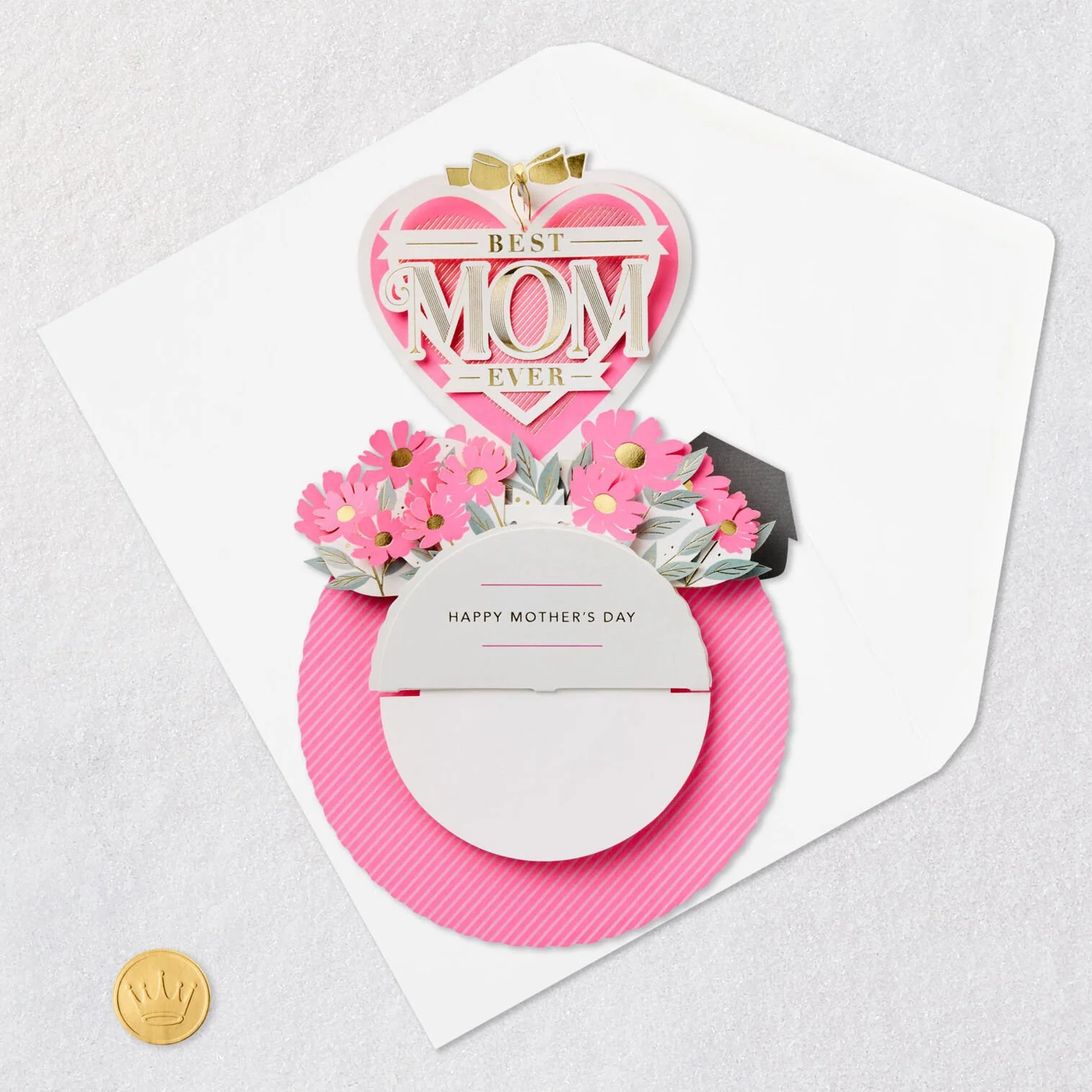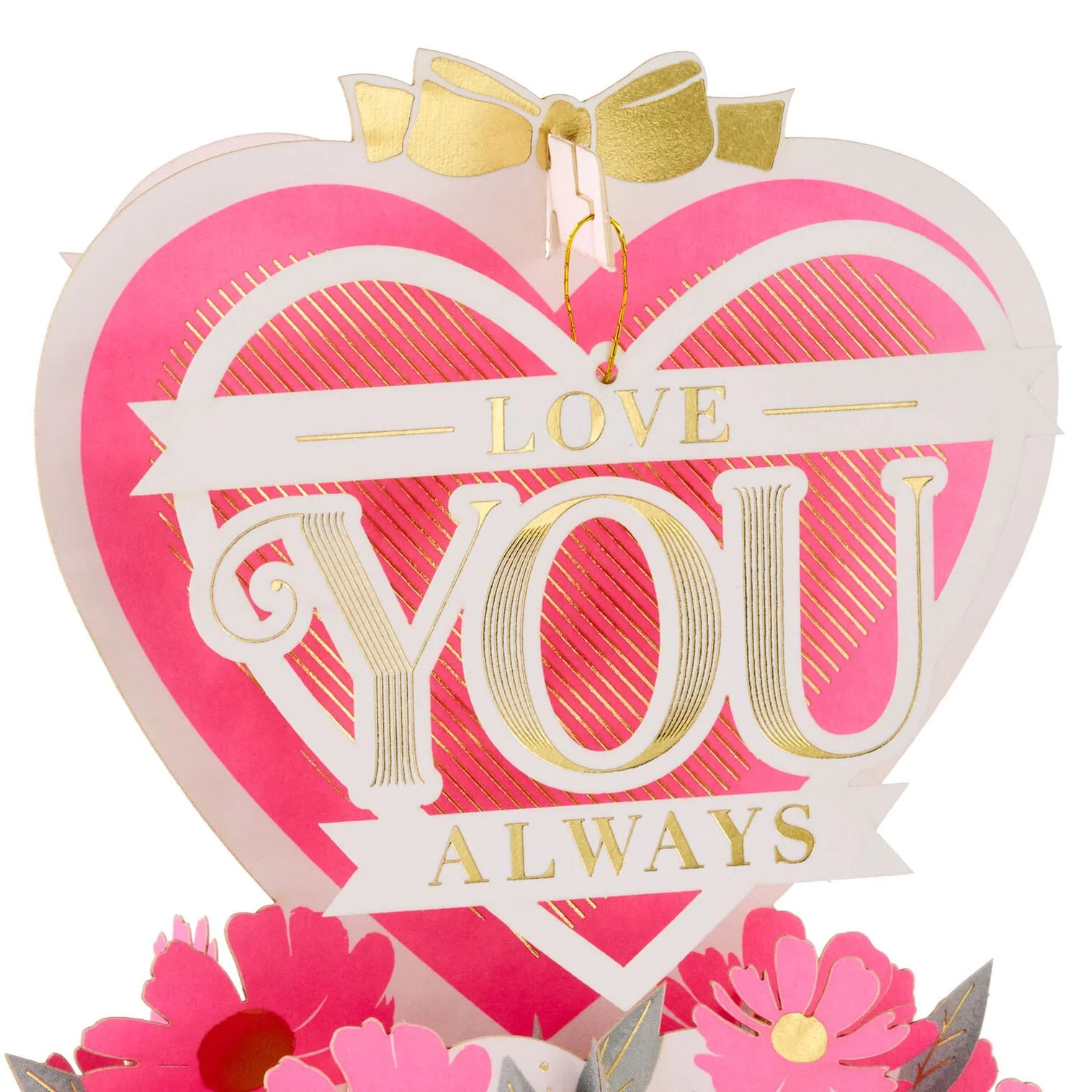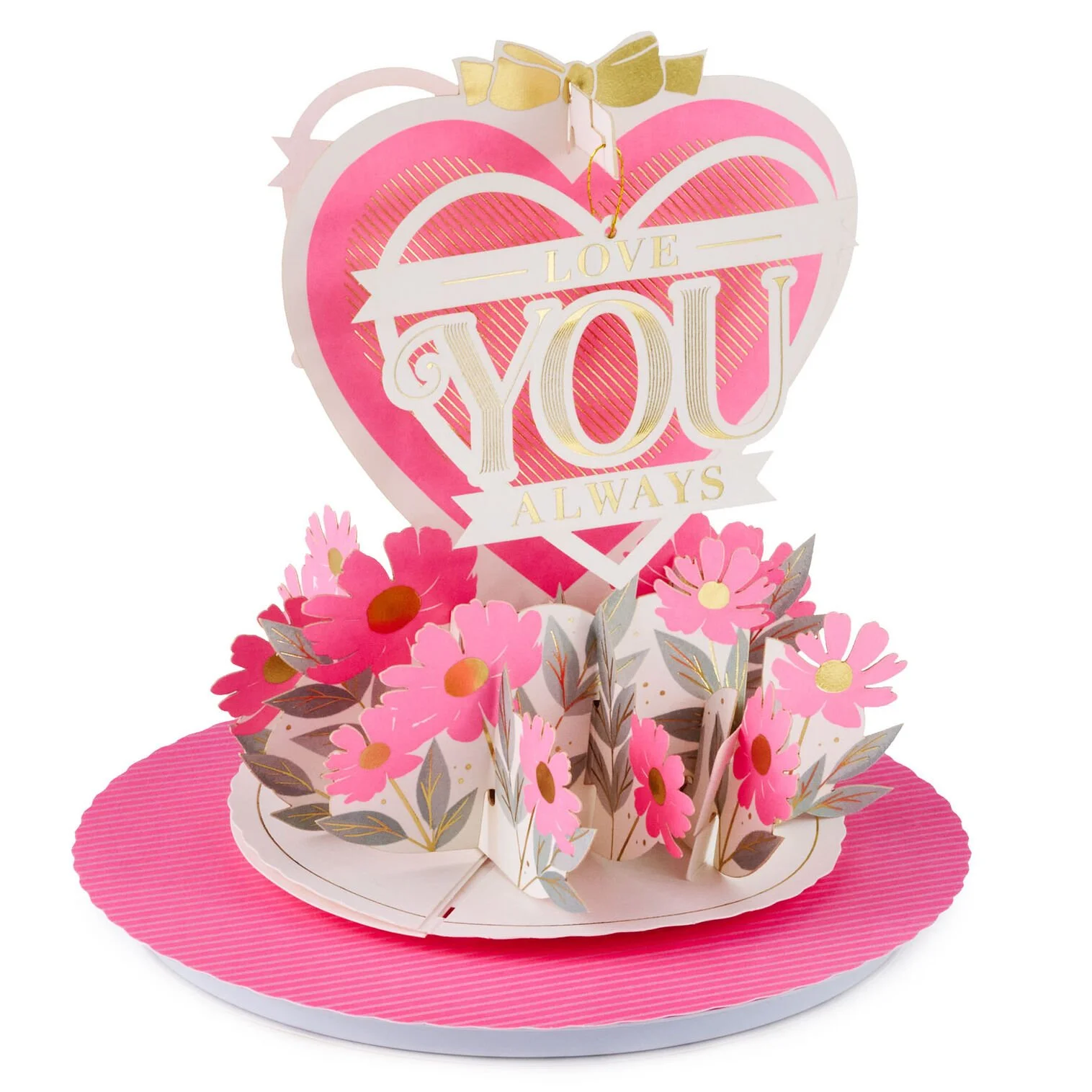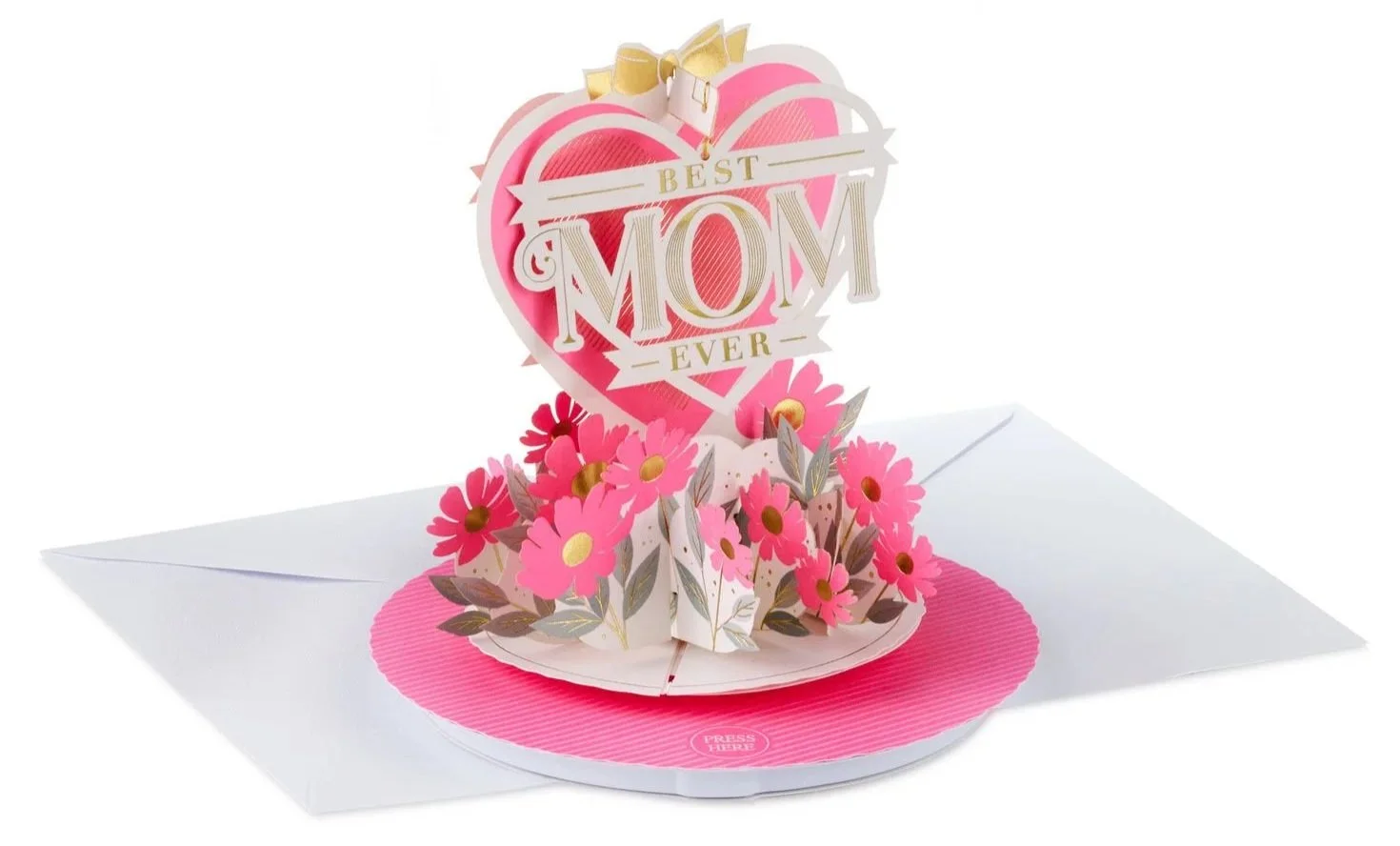
I absolutely love how my lettering was used in this beautiful Paper Wonder Mother’s Day card! Featuring sound, motion (it spins!) and stunning gold details, this decorative lettering style is the perfect complement to the design. I had so many wonderful opportunities to create for this season, I can’t wait to share more in the coming days!